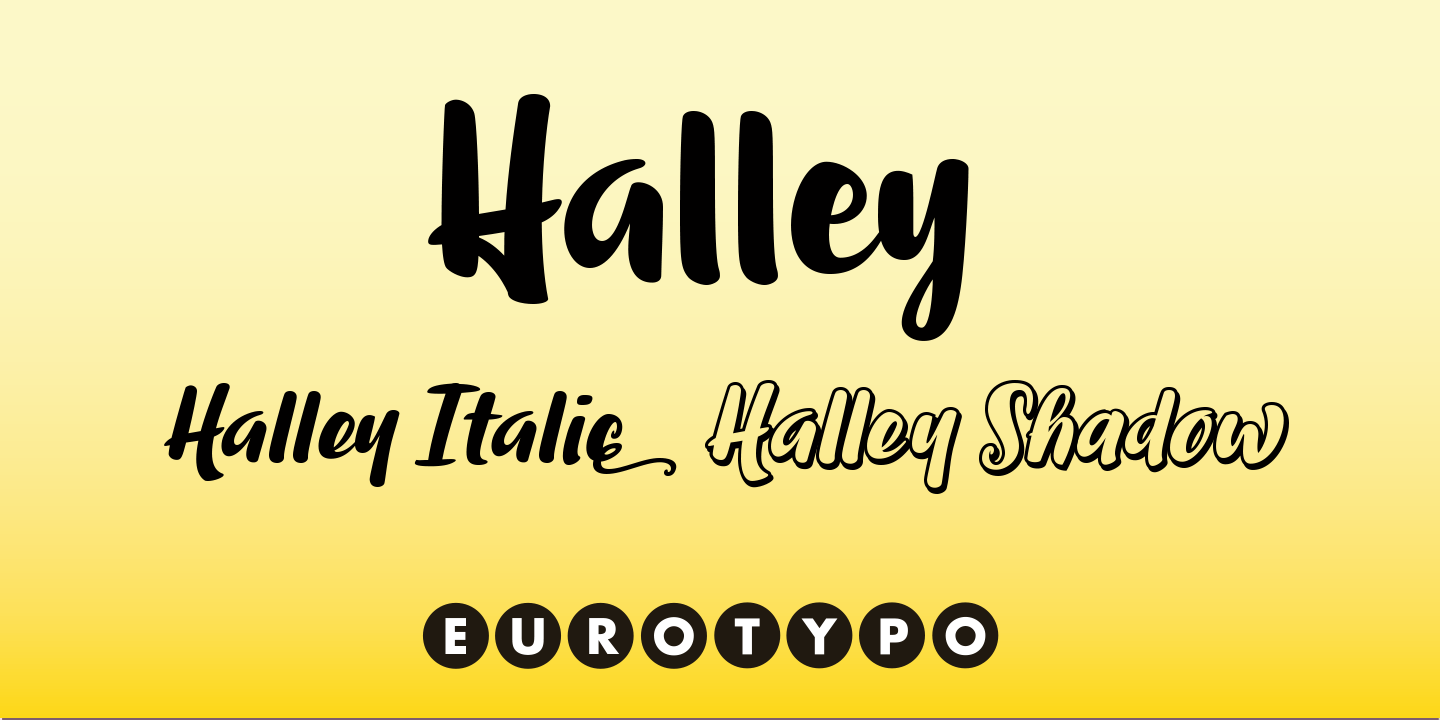
Halley Font excels in various design applications including elegant wedding invitations, luxury brand logos, sophisticated restaurant menus, high-end fashion magazines, premium product packaging, formal certificates, upscale event programs, and refined corporate communications that demand classic elegance and timeless appeal.
What makes Halley Font truly exciting is its perfect fusion of classical elegance and contemporary sophistication. This exquisite typeface draws inspiration from traditional calligraphy while incorporating modern design principles, creating a harmonious balance that appeals to both classic and contemporary aesthetics. The font's graceful curves and refined details demonstrate exceptional craftsmanship, with each letterform carefully designed to maintain readability while expressing distinctive character. Its versatile nature allows it to convey luxury, trust, and sophistication across diverse applications.
The Halley Font family includes a comprehensive range of weights and styles to accommodate various design requirements. The collection features Light, Regular, Medium, SemiBold, and Bold weights, each available in both roman and italic versions. The family also includes decorative capitals, ornamental elements, and stylistic alternates that enhance the font's versatility. Additional features include swash characters, ligatures, and flourishes that add elegance to special occasions and premium applications.
Professional designers consistently select Halley Font Free Download for projects requiring refined typography and sophisticated visual communication. The font's exceptional legibility across different sizes makes it suitable for both headline applications and extended text reading. Its classical proportions and balanced spacing ensure optimal readability while maintaining the distinctive character that sets premium brands apart from their competitors.
The advanced OpenType capabilities of Halley Font include contextual alternates, stylistic sets, discretionary ligatures, and comprehensive character support for multiple languages. These professional features enable designers to achieve typographic excellence in complex layouts while maintaining the font's elegant appearance.
For creative professionals seeking a typeface that embodies timeless elegance and contemporary functionality, Halley Font represents an outstanding choice. Its ability to convey sophistication while remaining highly readable makes it perfect for luxury brands, formal communications, and premium design applications. The font's versatility ensures consistent brand expression across all media, from traditional print materials to modern digital interfaces, creating cohesive experiences that resonate with discerning audiences.